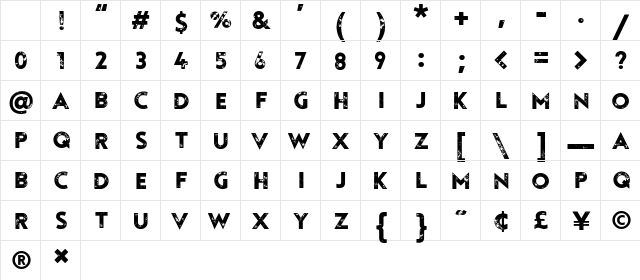
Tourmaline is a composed and adaptable typeface that performs quietly and consistently across a wide range of design contexts.
Who designed the Tourmaline Printed font?
This font was published by Vincenzo Paolo Fraddosio. Check the technical specs section for copyright and designer details.